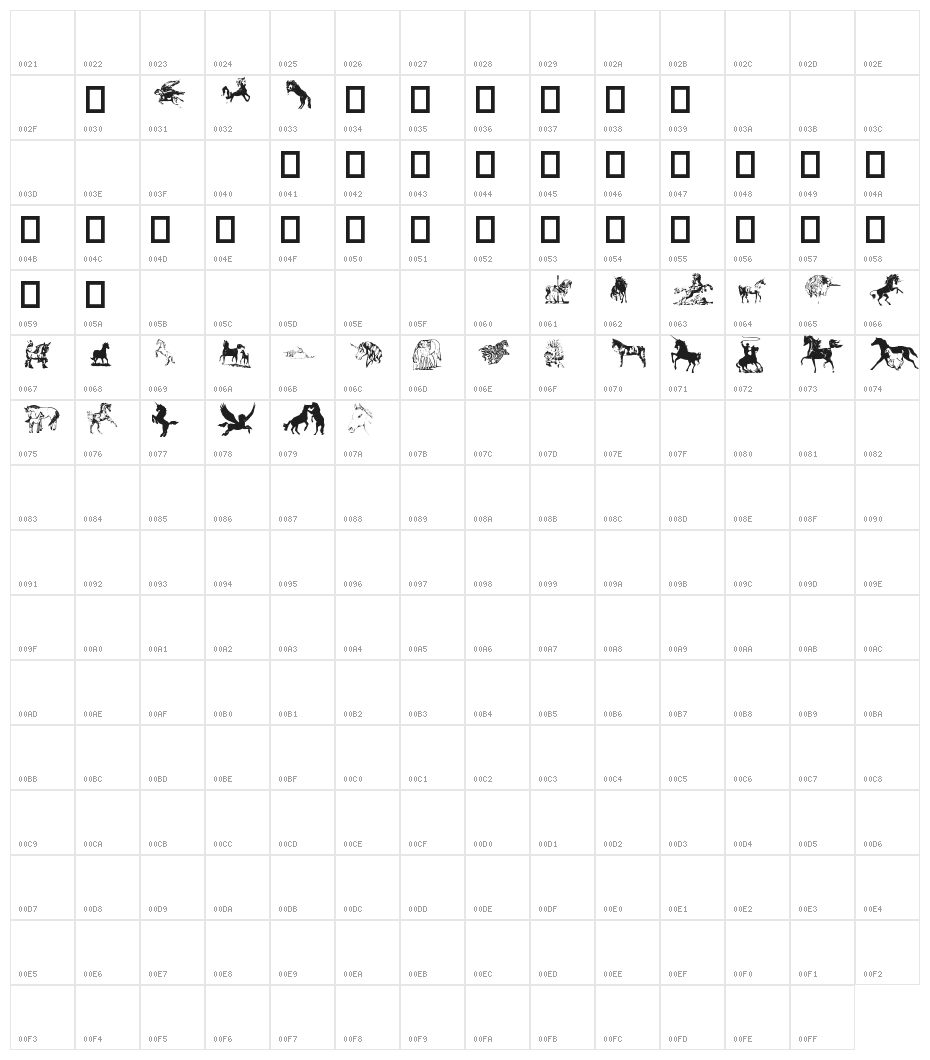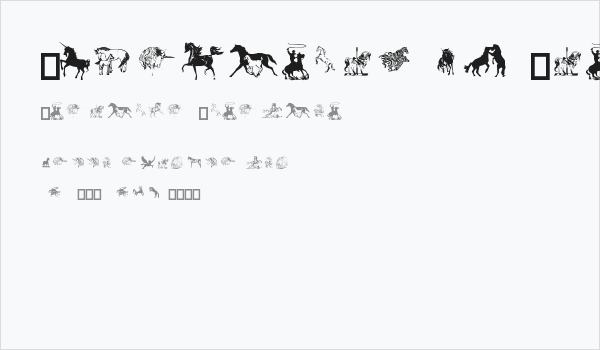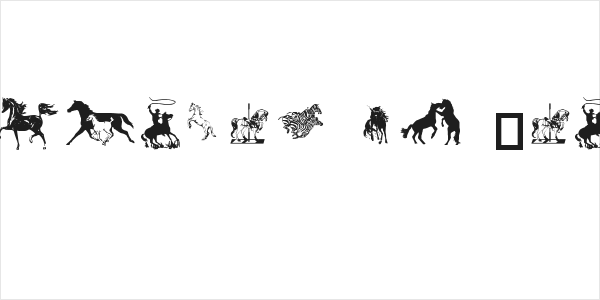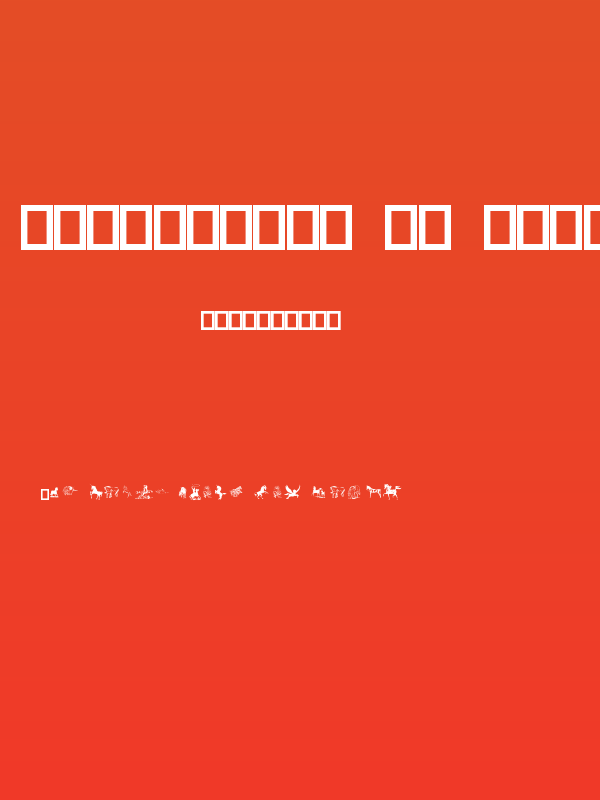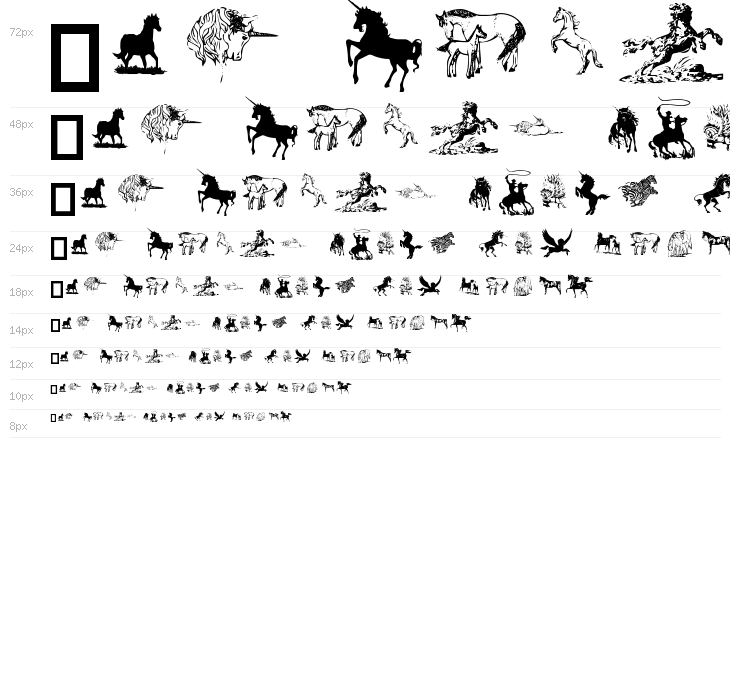
Equestrian by Darrian Font
Equestrian by Darrian Description
A decorative dingbat font featuring detailed black-and-white illustrations of horses in various poses, including running, standing, mythical creatures, and riders. Each character is represented by a unique equestrian-themed silhouette, making the font highly illustrative and ornamental.
| Overall Style | Decorative, Illustrative, Thematic |
| Use Case | Logos, Posters, Decorative elements, Themed graphics |
| Proposed Projects | ChildrenΓ’β¬β’s books, equestrian event posters, themed invitations, animal-related branding, decorative borders. |